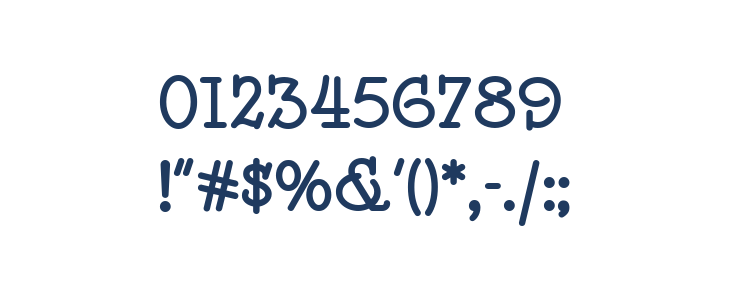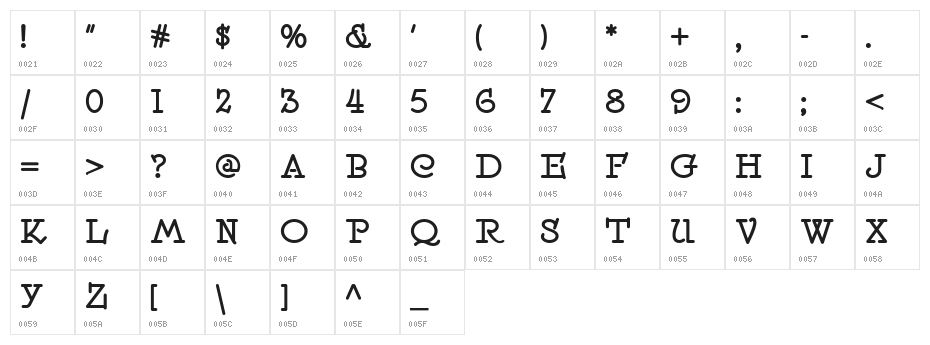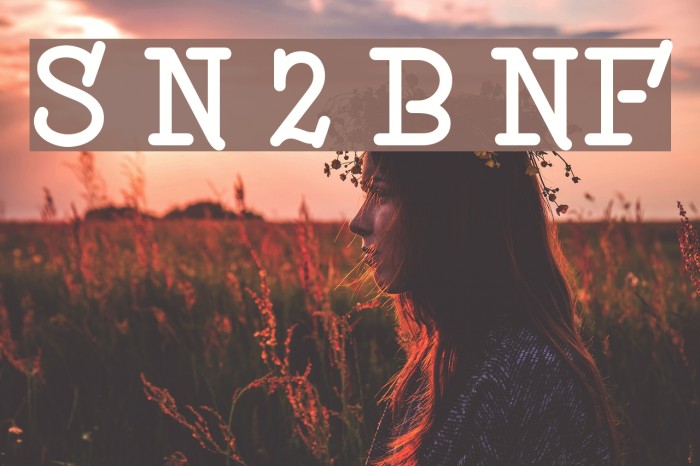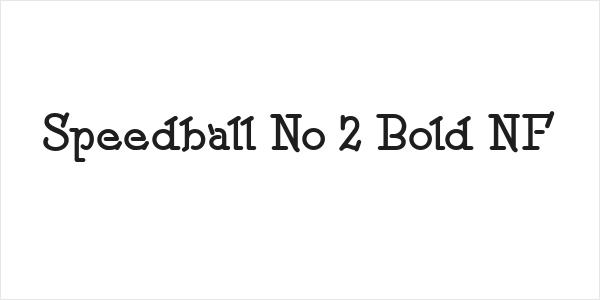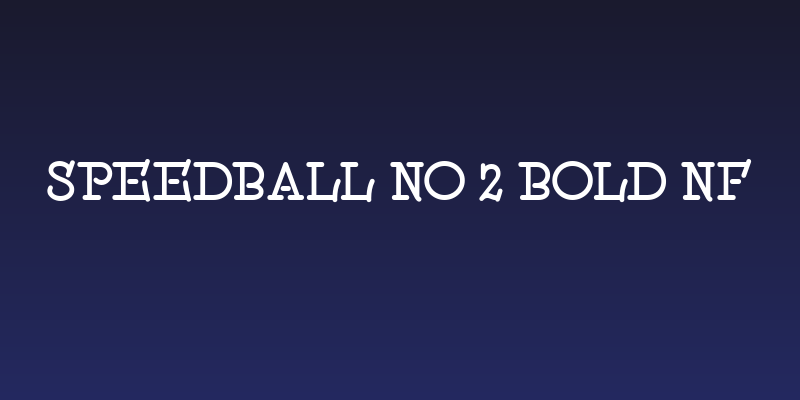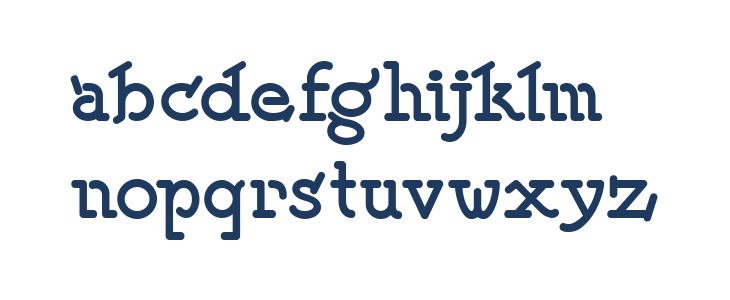
Speedball No 2 Bold NF Font
Speedball No 2 Bold NF Description
This font features a bold and playful design with a distinctive retro flair. The characters are rounded and have a slight slant, giving them a dynamic and energetic feel. The uppercase letters are particularly striking, with unique serifs and curves that add character and charm. The lowercase letters maintain a consistent style, complementing the uppercase with their rounded forms and playful loops. Numbers and special characters are equally bold and expressive, making them stand out in any design. The overall appearance is both vintage and modern, suitable for projects that require a touch of nostalgia with a contemporary twist.